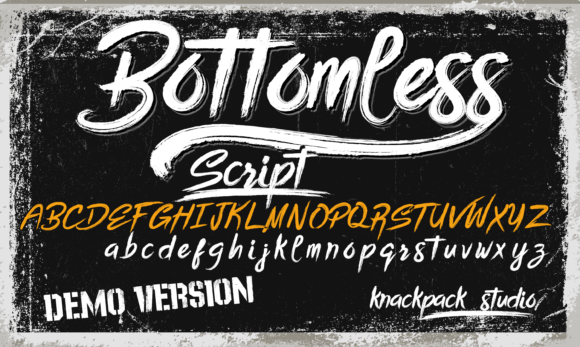
The Ultimate Guide to Bottomless Script Font: Unleash Your Creativity
I’ll never forget the time I was working on a streetwear branding project, and my client asked for a font that would make their label stand out. I scoured the internet, tried countless fonts, but nothing seemed to capture the edgy, rebellious vibe they were looking for. That was until I stumbled upon Bottomless Script Font. 💥
It was love at first sight! The bold, energetic brush strokes instantly gave me the dynamic feel I needed. In this article, I’ll share my experience with Bottomless Script Font, its features, and how to make the most of it in your designs.
An Honest Review of Bottomless Script Font
• 💯 Unique, handcrafted aesthetic: Bottomless Script Font has a raw, authentic feel that sets it apart from other script fonts.
• ✅ Easily conveys energy and movement: The quick brush strokes give your designs a dynamic edge, perfect for capturing attention.
• 🎨 Versatile and expressive: Use it for streetwear, album covers, poster headlines, or artistic branding – the possibilities are endless!
• ⚠️ Legibility at small sizes: Like many script fonts, Bottomless Script can be tricky to read at small sizes. Use it at larger sizes or for headlines.
• 🤔 Glyph variety: While the font has a great range of characters, some users might find the selection limited for certain projects.
The Story Behind Bottomless Script Font
Imagine a young artist, fueled by passion and creativity, sketching on the streets of New York City. This is the inspiration behind Bottomless Script Font. The designer aimed to capture the raw energy of street art and translate it into a digital font. The result is a bold, expressive font that adds a rebellious edge to any design.
Font Name Bottomless Script Font
Author CconceptLab Digitals
What type of projects is Bottomless Script best suited for? Bottomless Script is ideal for streetwear, album covers, poster headlines, and artistic branding.
Is Bottomless Script difficult to read? Like many script fonts, it can be challenging to read at small sizes. Use it at larger sizes or for headlines.